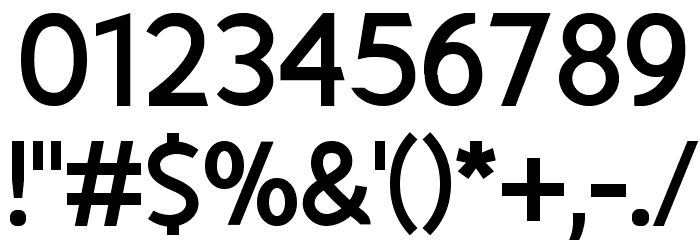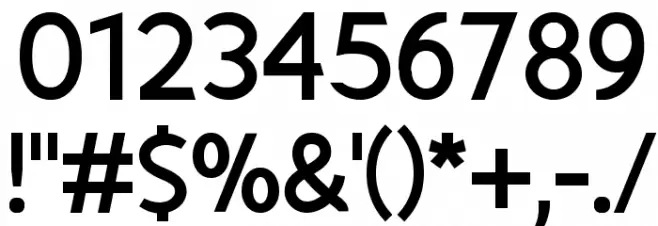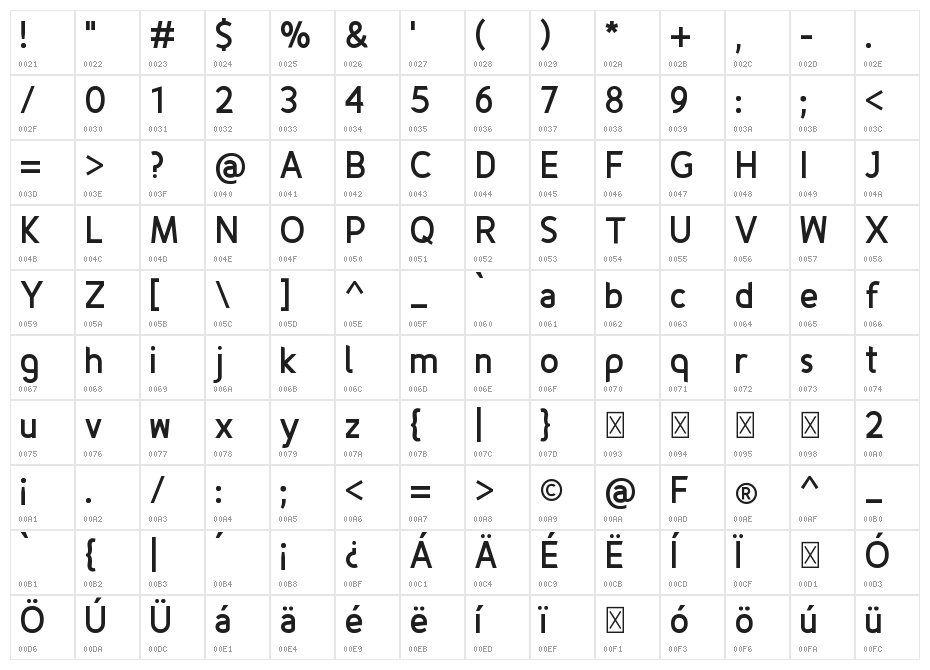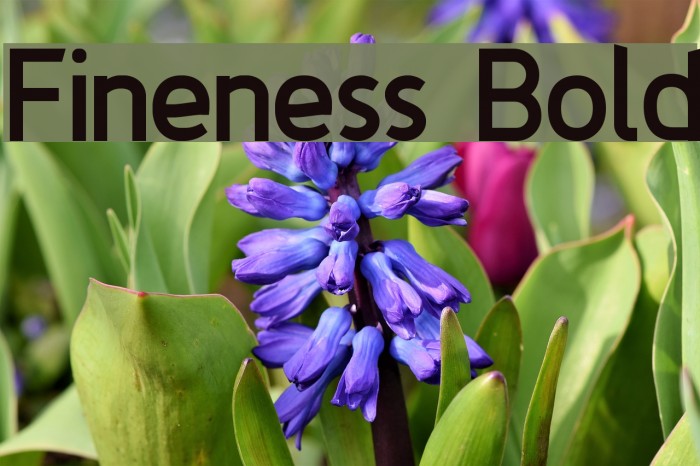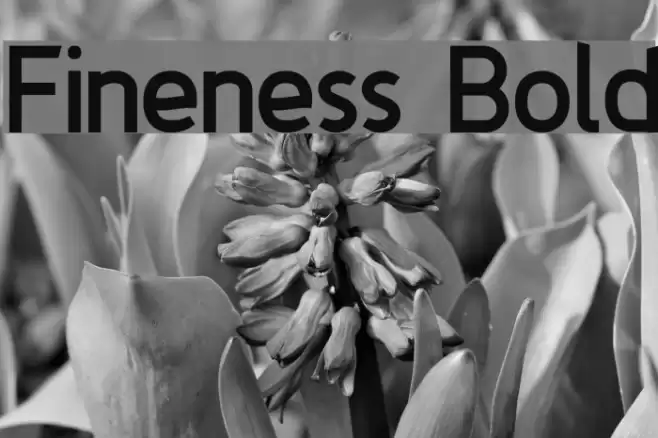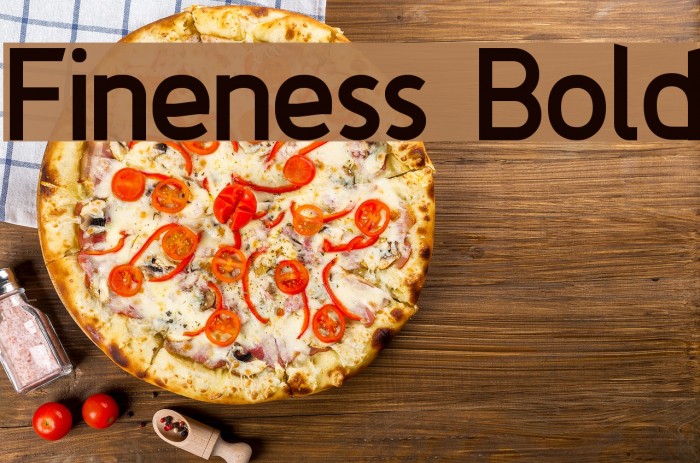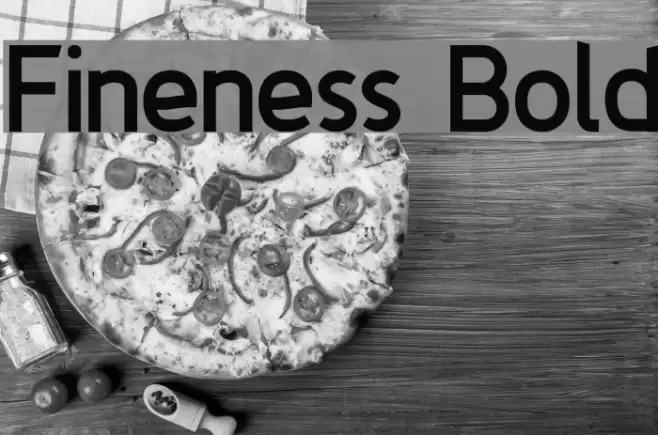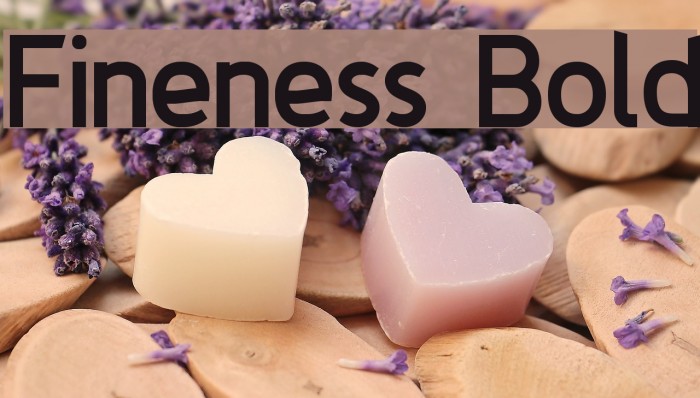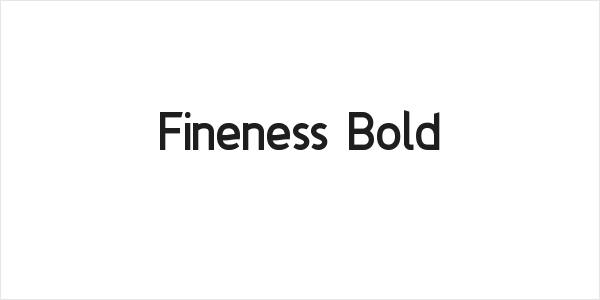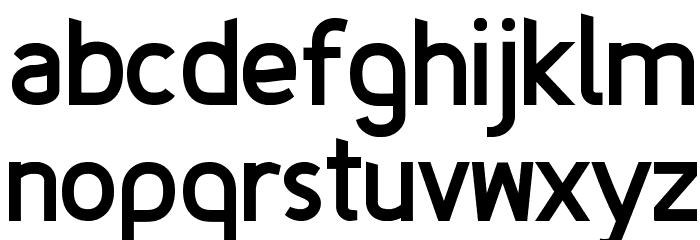
Fineness Bold Font
Fineness Bold Description
This font showcases a clean and modern sans-serif style, characterized by its bold and uniform stroke weight. The characters are well-balanced with a consistent height and width, providing a harmonious and professional appearance. The uppercase letters are slightly taller than the lowercase, maintaining a clear distinction between the two. The numerals are proportionate and align seamlessly with the alphabetic characters, ensuring readability. Special characters are distinct and easily recognizable, enhancing the font's versatility. The overall design is straightforward yet impactful, making it suitable for a variety of applications.